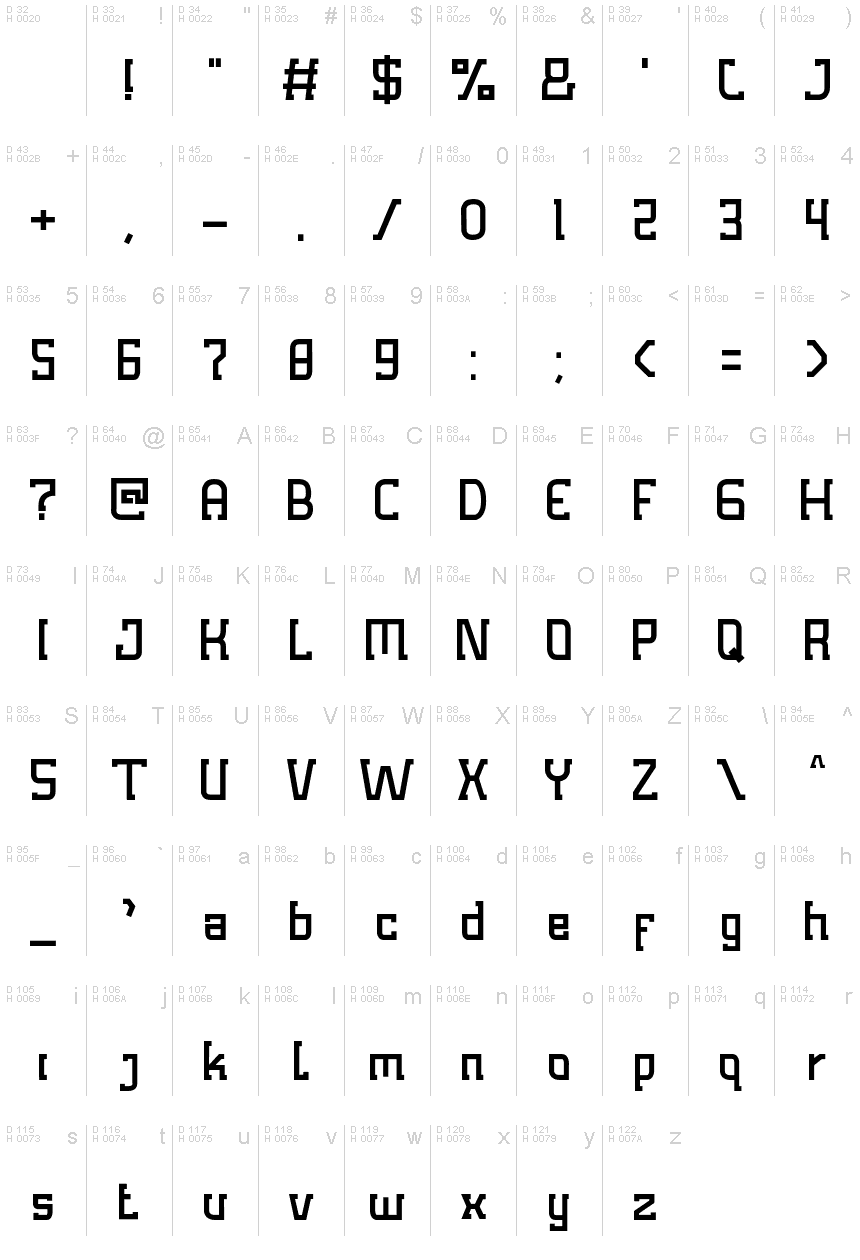
Lobots
Lobots, the ingenious creation by font designer Kong Font, is a captivating display font that exudes a futuristic vibe. With its techno-inspired style, Lobots is perfect for projects that demand a bold and innovative touch. From sci-fi movie posters to cutting-edge technology websites, this display font delivers an unmistakable visual impact. Its sleek lines and carefully crafted curves make it ideal for logo designs, video game titles, and album covers seeking a modern edge. Elevate your projects to new heights with Lobots – the go-to choice for all things progressive and forward-thinking.